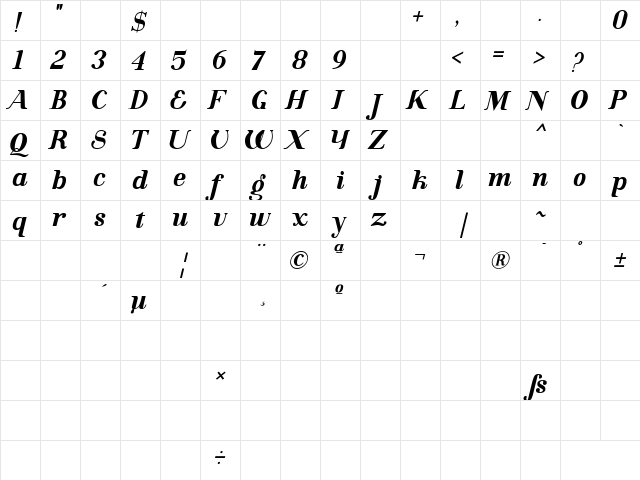
Grandline Italic free for perso Italic
| Designer | Nuryanto Dwi |
Design Context for Grandline Italic free for perso Typeface
Grandline Italic free for perso takes a measured approach to typography — its balanced proportions and neutral character make it a reliable workhorse for both digital and print work. Its italic angle brings a sense of urgency and motion to the letterforms.